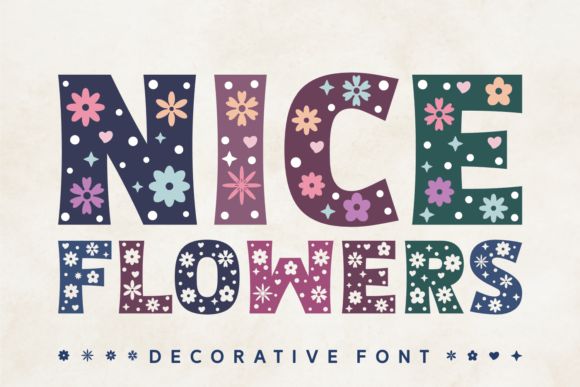
Looking to add a touch of whimsy and joy to your designs? Introducing Nice Flowers Font, the perfect choice for anyone seeking a hippie, jolly vibe in their creative projects. Created by the talented Jasa at 7NTypes, this decorative font is sure to captivate your audience and elevate your designs to new heights.
With its playful and flower-power-inspired style, Nice Flowers Font brings a unique charm to any project it graces. Whether you're designing school reports, greeting cards, posters, or even website headers, this font will effortlessly infuse your creations with a delightful energy that is bound to leave a lasting impression.
Imagine the enchanting effect Nice Flowers Font will have on your school reports. Instead of the usual dull and monotonous fonts, your reports will now take on a vibrant and eye-catching appearance. As your classmates and teachers peruse your work, they will be instantly captivated by the lively and cheerful atmosphere that this font creates. Your reports will not only stand out but also become a joy to read, making you the talk of the class!
Not limited to school reports, Nice Flowers Font embraces versatility and can be used for a wide range of projects. Whether you're designing invitations for a birthday party, creating promotional materials for a summer sale, or simply adding a touch of whimsy to your personal blog, this font will bring your ideas to life in the most enchanting way possible.
The intricate details and artistic flair of Nice Flowers Font make it a true gem in the world of decorative fonts. Each letter is meticulously crafted to resemble delicate blossoms, ensuring that your designs exude an air of beauty and elegance. With its flowing curves and playful nature, this font captures the essence of nature's vibrant colors and harmonious spirit.
Remember, Nice Flowers Font is not just a font; it's a gateway to a world of imagination and creativity. Step into this world and let your designs flourish like never before!